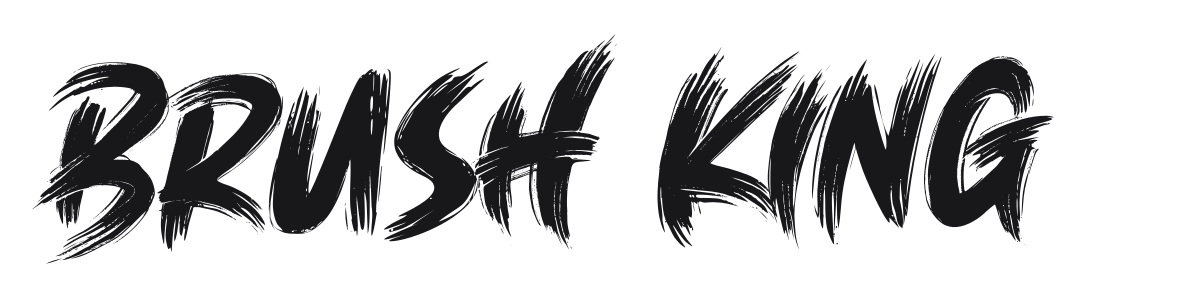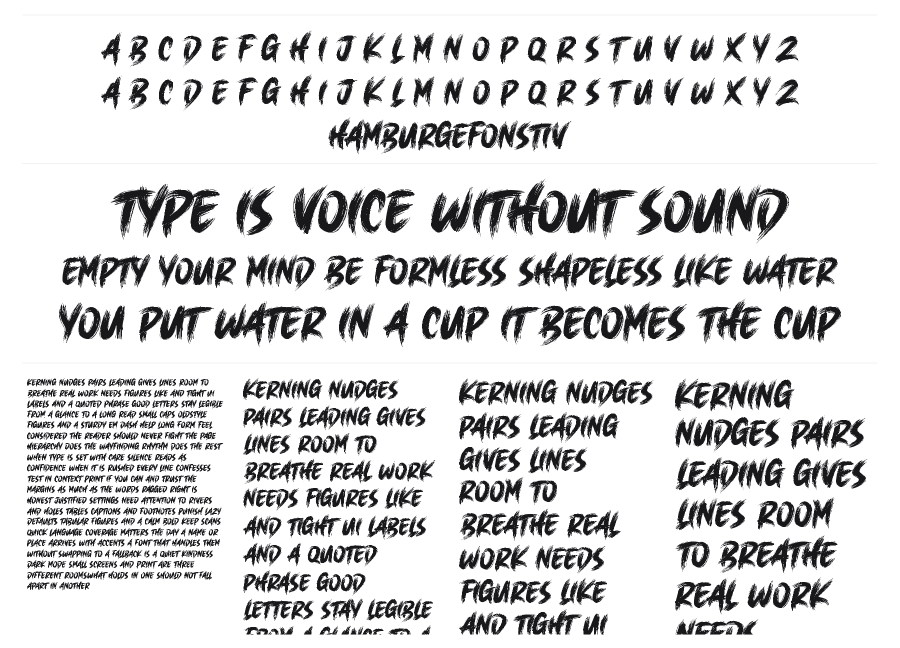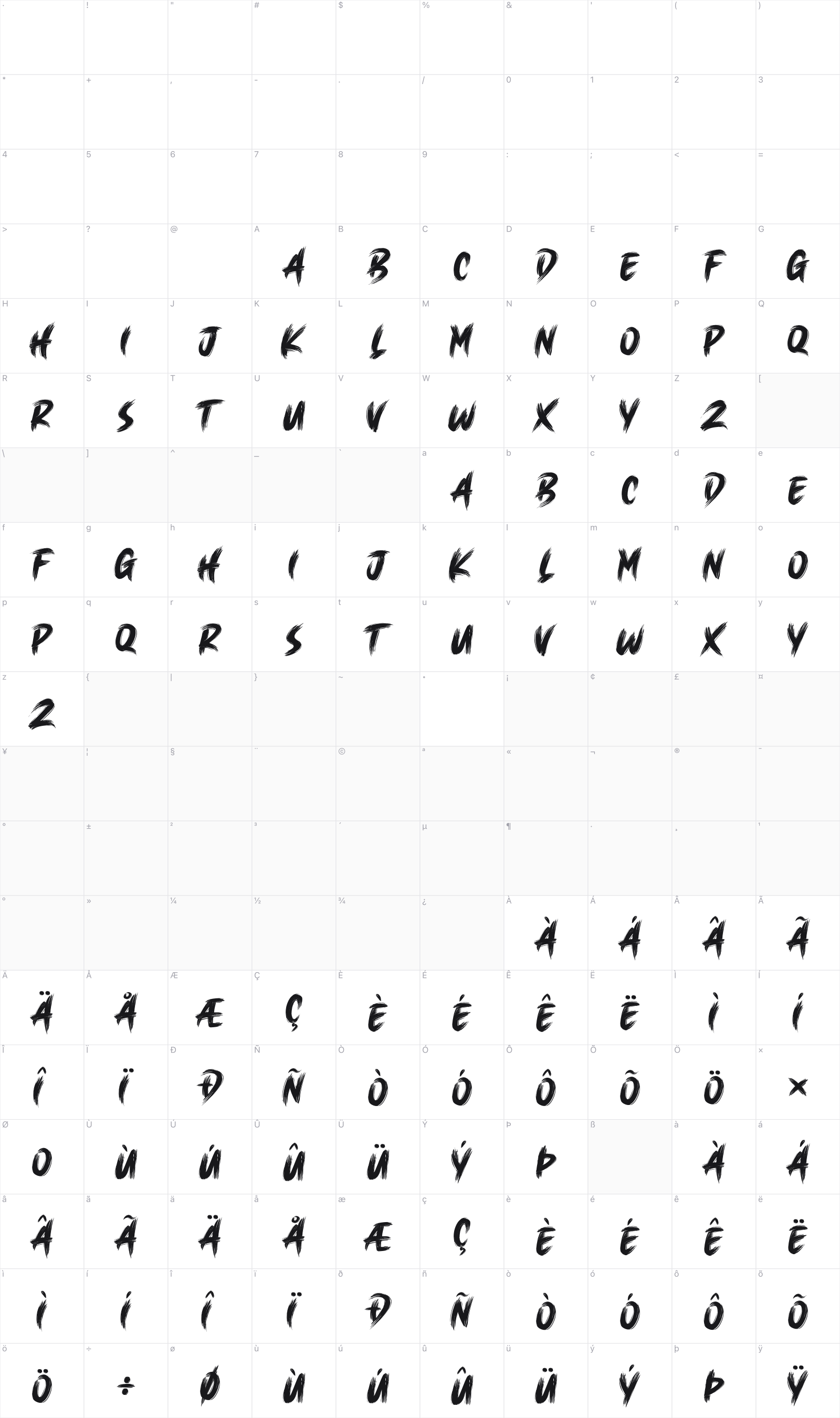
Brush King
Brush King is a raw, high-energy brush script from Subectype Studio with heavy bristle textures and an aggressive italic slant. The characters look like they were slapped down fast with a loaded brush, each stroke fraying at the edges. It carries the visual language of street art, sports branding, and punk poster design.